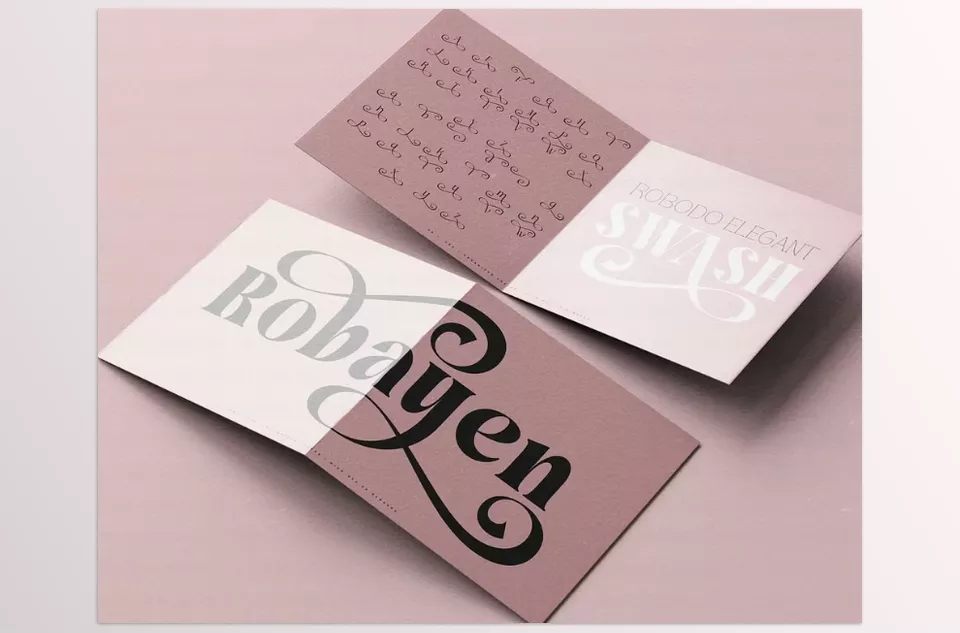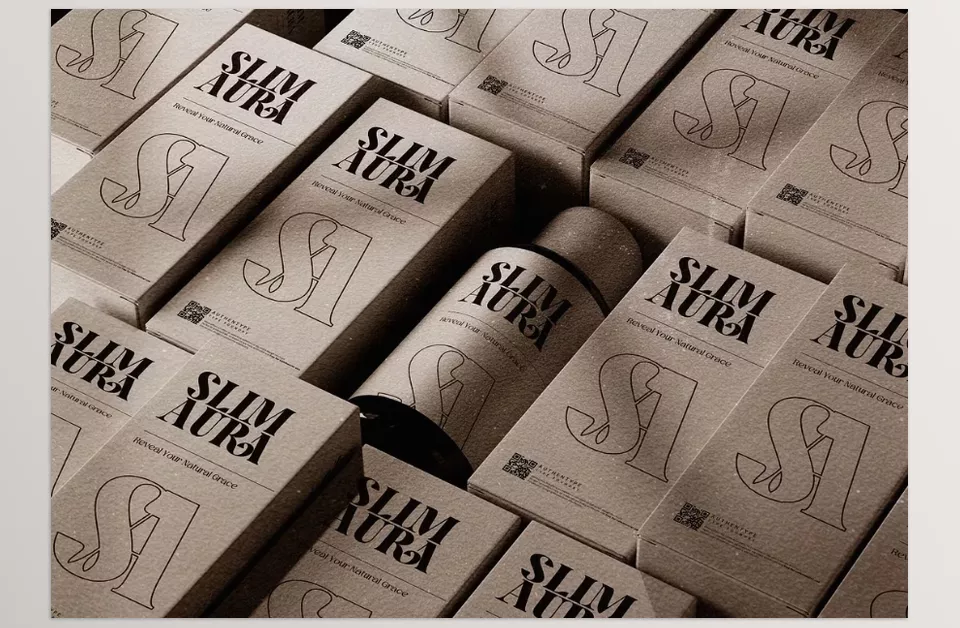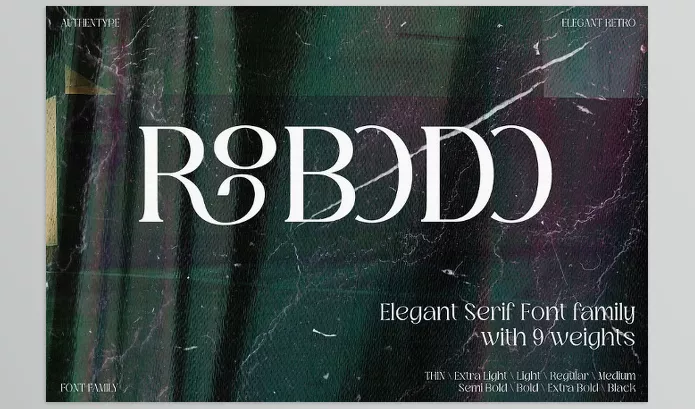
Robodo Serif Font Family offers nine pieces with styles ranging from Thin to Black for every weight and aesthetic need. The family is completed with Cyrllics, numerals, and other signature elements that give the designer more to work with. The font is created for various designs and mixes elegance with readability.
AuthenType – Robodo Serif Font Family Features
• Flexiuble Weight Range: This family has nine weights, ultra light to extra bold, which makes it suitable for competitive and multilingual designs.
• Refined Serifs: The beautifully crafted serifs have a soft contour, thus making them simple yet elegant and suitable for almost every design style.
• Comprehensive Character Set: The font contains a complete set of types, including uppercase and lowercase letters, figures, punctuation marks, ligatures, and a variety of stylistic fonts that give a broader speech to the typographer.
Robodo Serif Font Family Overview
Image 1: The fonts feature beautifully curved serifs, lending a classic yet contemporary feel to any project.
Robodo Serif Font Family - The fonts feature beautifully curved serifs, lending a classic yet contemporary feel to any project.
Image 2: From ultra-light to bold and impactful, every font style in this family maintains a graceful elegance that elevates your design work.
Robodo Serif Font Family - From the ultra-light to the bold and impactful, every font style in this family maintains a graceful elegance that elevates your design work.